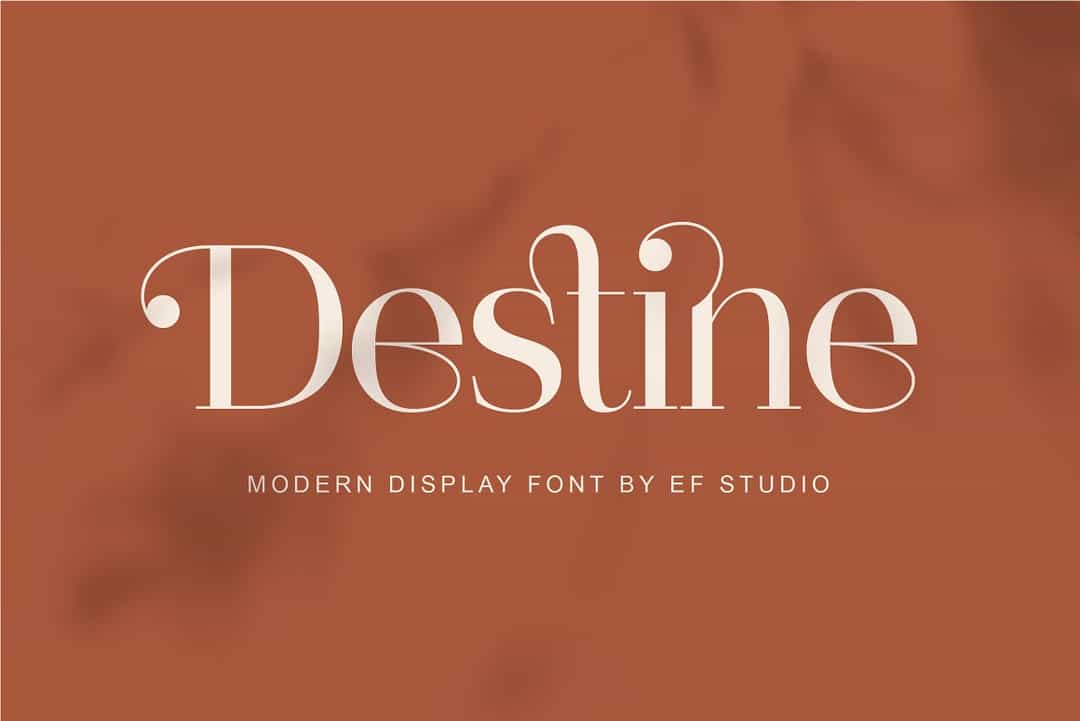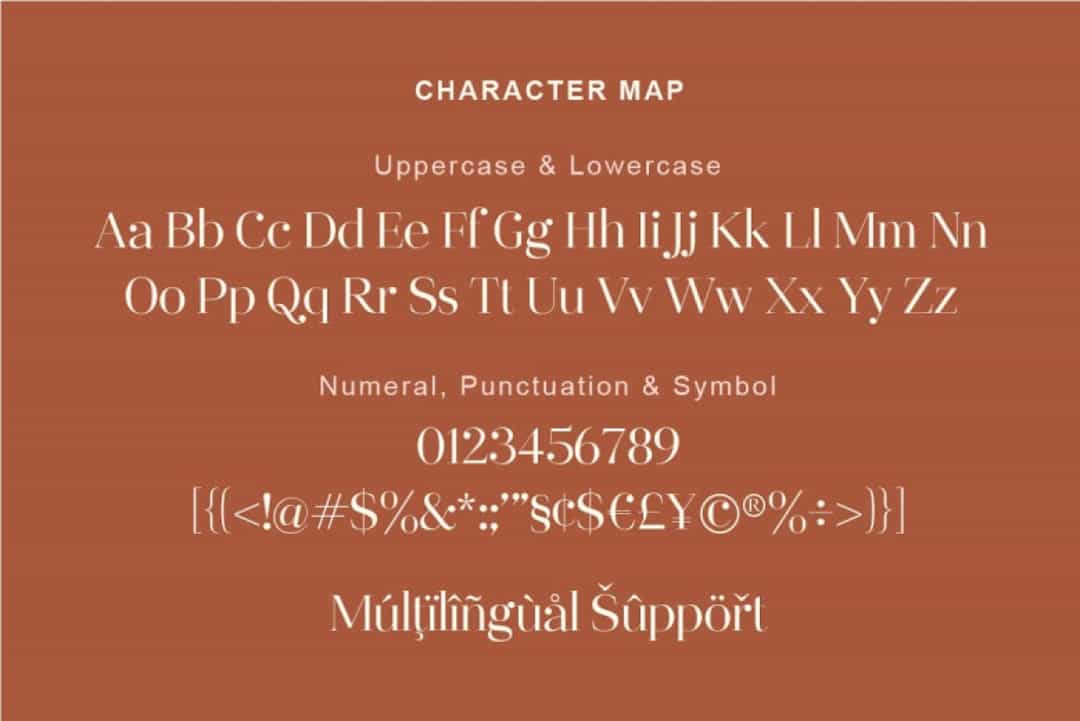
Destine is a new display serif font featuring high contrast and hairline serifs that is inspired by Didot or Bodoni. Destine features opentype features such as stylistic ligatures and alternative for adding style to any design, making it suitable for logos, branding book magazines headlines wedding invitations and much more.